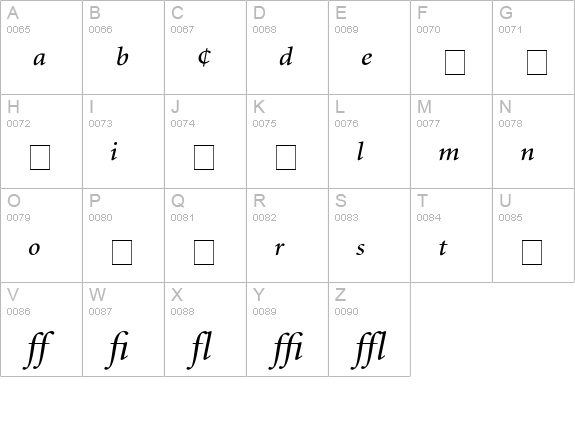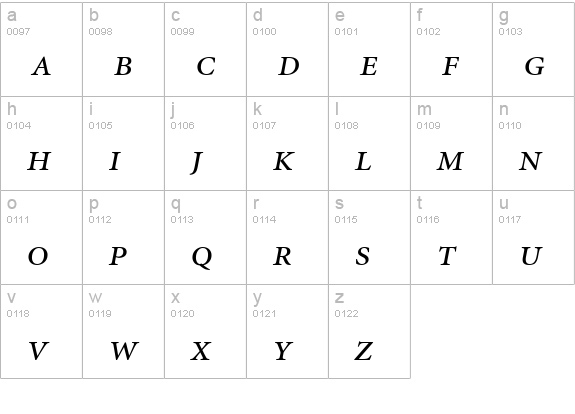
Atlantix Pro SSi Italic is a distinctive, italic variant in the Atlantix typeface family \xE2\x80\x94 well suited to design and typography projects.
Atlantix Pro SSi Italic font is a beautifully crafted typeface that exudes elegance and sophistication. With its sleek and modern design, this font is perfect for adding a touch of sophistication to any project. The italic style adds a sense of dynamism and flair, making it ideal for use in headings, quotes, and other prominent text elements. What's even better is that Atlantix Pro SSi Italic font is available for free download at FontsMarket.com. So you can easily add this stunning typeface to your collection without any cost. Whether you're working on a branding project, a website design, or any other creative endeavor, Atlantix Pro SSi Italic font will elevate your work to the next level. Download it today and experience the beauty and versatility of this fantastic font!